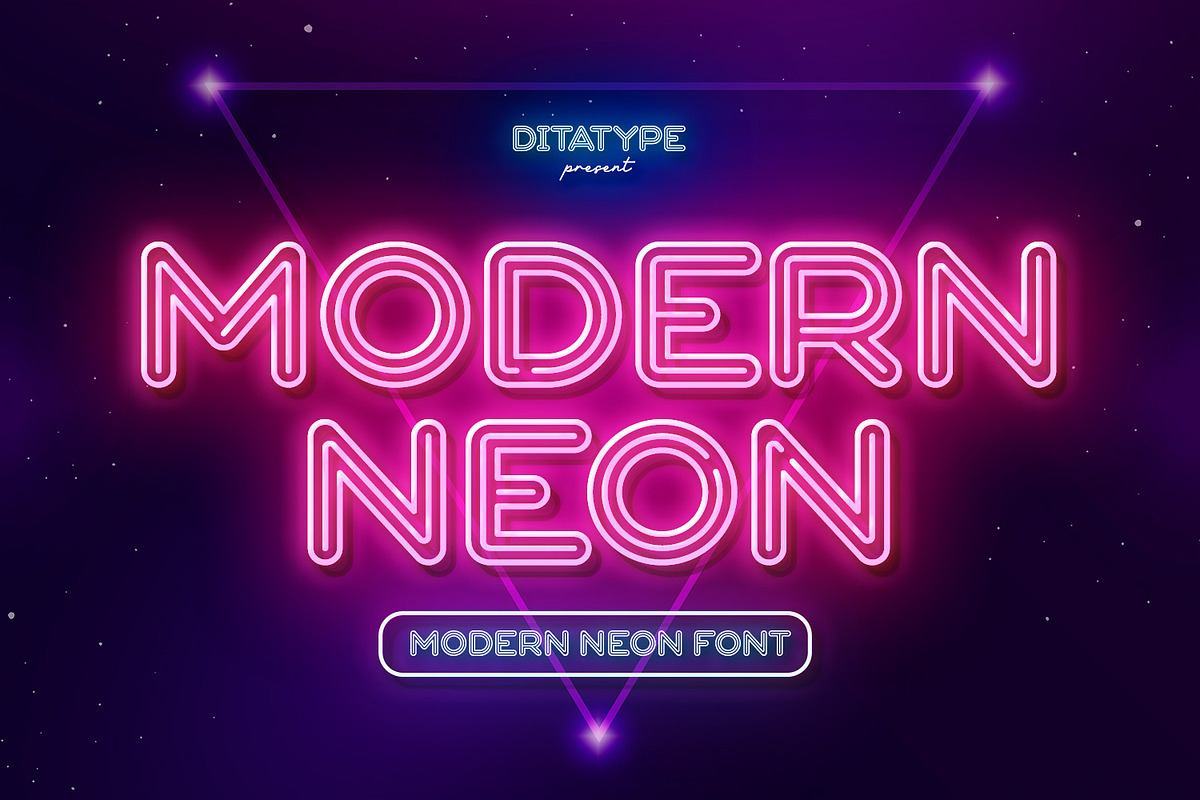
Please note, you must purchase this font for commercial use. However, you can easily download Modern Neon Font Free Download for personal use and testing purposes. Modern Neon Font is a vibrant and futuristic typeface inspired by neon lights and modern signage. Perfect for projects that need a bold, glowing effect, this font is ideal for creating eye-catching logos, posters, social media graphics, and event promotions. With its sleek, illuminated design, Modern Neon Font Free Download adds a contemporary, electrifying touch to any design, ensuring it stands out with energy and flair. Whether you're working on a nightlife brand, a tech project, or anything that requires a modern and illuminated look, this font brings a dynamic presence to your work. Download Modern Neon Font Free Download today and explore its creative potential before opting for a commercial license.